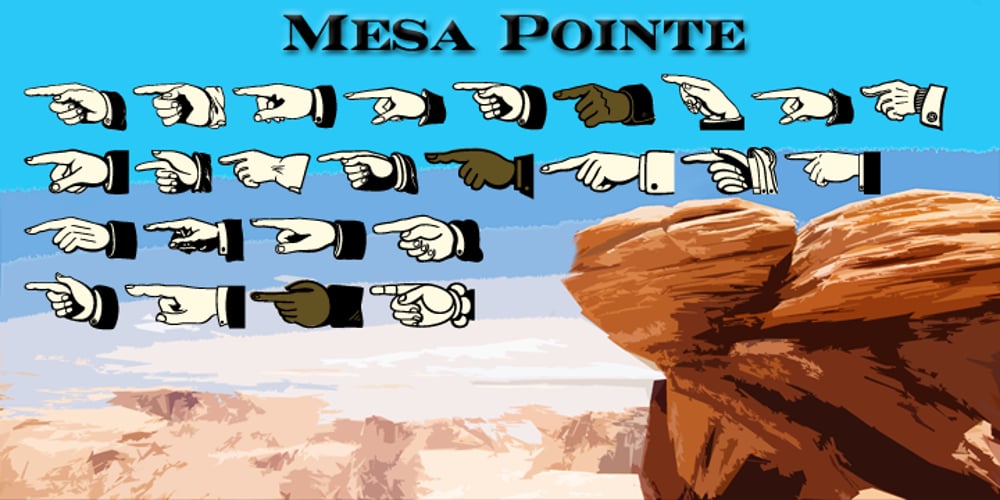
Mesa Pointe
Mesa Pointe font
Mesa Pointe Font Family was designed by Michael Hagemann and published by FontMesa. Mesa Pointe contains 6 styles and family package options. Mesa Pointe is a collection of pointing hand designs. Most of the hands have been re-drawn from old printing sources dating back to the 1800s. You may recognize some of the hands from old wanted or railroad posters. Mesa Pointe comes with three versions, plain, a shaded version and a fill version that can be used as a stand alone font or if your computer application works in layers you can use the fill font to fill in the open space in the center of each hand adding different colors.